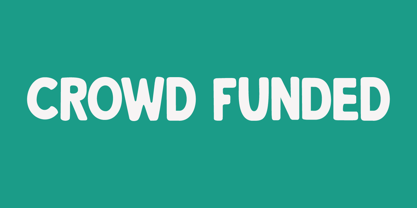
Crowd Funded
by Hanoded
About Crowd Funded Font Family
Crowd Funded fonts wasn’t really crowd funded… In fact, all of the funding came from me, as I had to buy paper and a new pen to get this font going! Crowd Funded is an all caps display font, which I based on a recent font of mine called Longreach. Crowd Funded is narrower and rounder than Longreach and, in a way, more delicate. It comes with a generous amount of diacritics and basic Cyrillic as well!
Designers: David Kerkhoff
Publisher: Hanoded
Foundry: Hanoded
Design Owner: Hanoded
About Hanoded
Hanoded is a type foundry based in The Netherlands and run by David Kerkhoff. After finishing his journalism studies, David traveled extensively and ended up in Israel where he stayed for some years. David had a lot of jobs – zookeeper, goldsmith, artist and cook (to name a few), but settled on working as a tour guide and photographer. David specializes in hand printed typefaces and uses brushes, pens, ink and paint to create his – sometimes scary looking – fonts. He lives in a wee hamlet near the Rhine river, with his wife, three kids, a handful of extremely spoiled chickens and two guinea pigs called Cookie and Chippie.The Premium foundry page can be viewed https://www.myfonts.com/a/font/premium-font-collections/hanoded